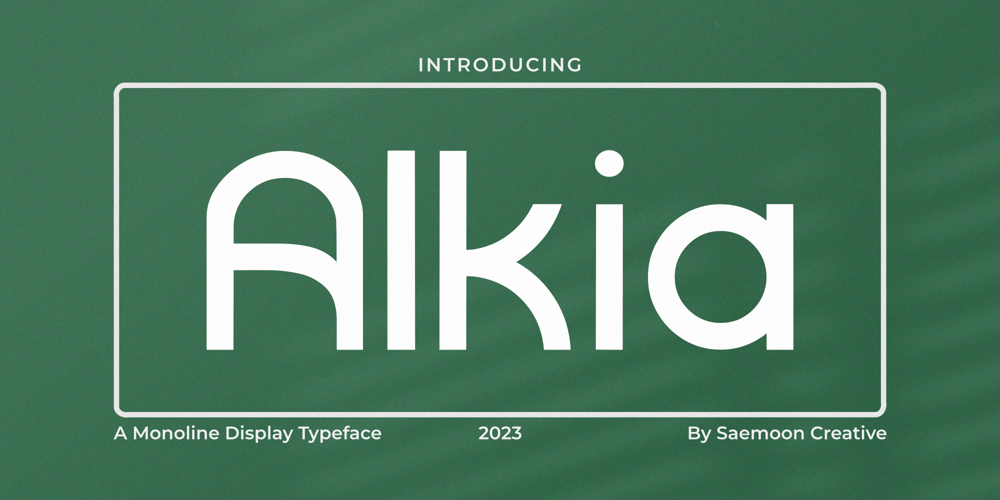
Alkia Font Family was designed by Sapto Susilo and published by Saemoon Creative. Alkia contains 1 styles and family package options. Alkia Sans Serif is a monoline display font crafted with single strokes that create dynamic curves, enhancing your designs with a perfect touch. Ideal for product branding, logo design, web displays, clothing branding, and social media posts, Alkia Sans Serif brings a sense of perfection to your projects.Alkia includes a complete set of:Uppercase and lowercase lettersMultilingual symbolsNumbersPunctuation marks